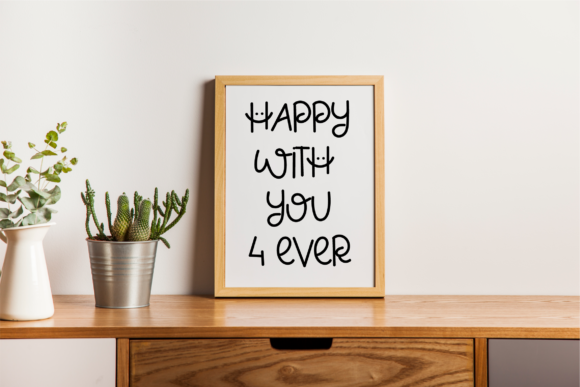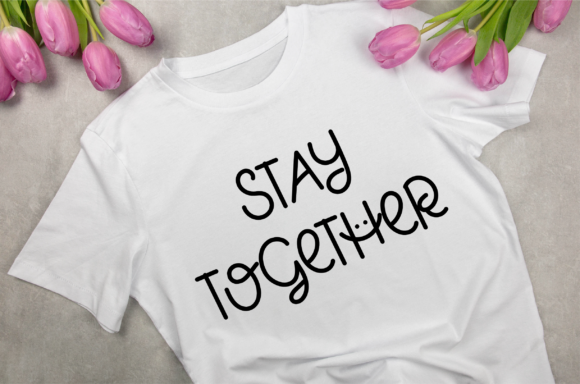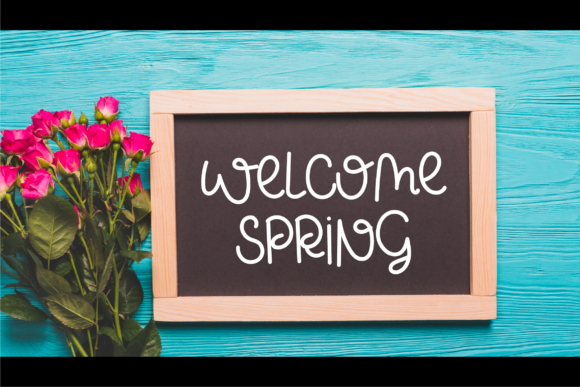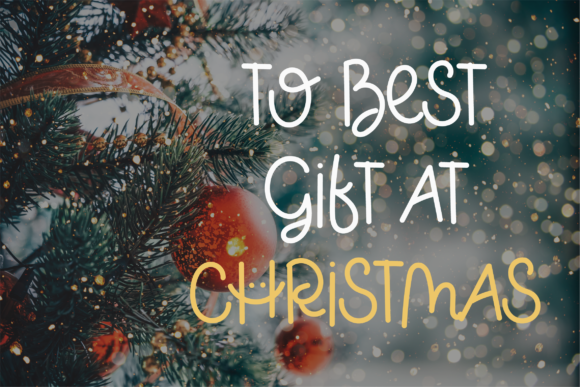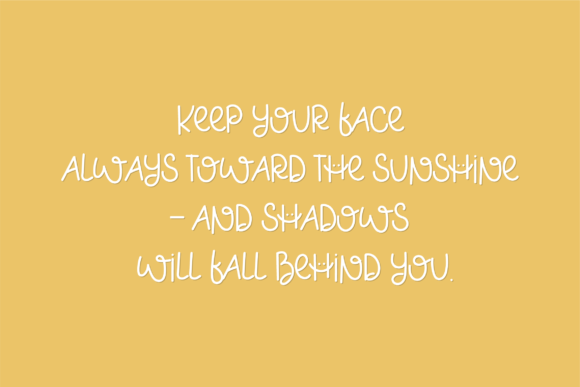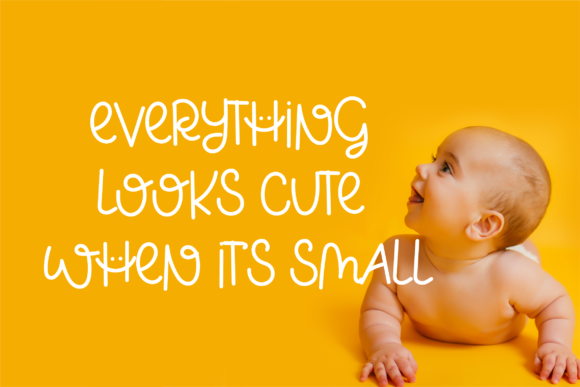
Introduction to Hi Feeling Font Font
Fonts play a crucial role in design, and the Hi Feeling Font font is a typeface that brings both character and versatility to any project. Whether you’re working on a branding project, a website, or a print design, the Hi Feeling Font font offers a unique style that can elevate your work.
Hi Feeling is a cute, thin lettered and quirky handwritten font.
Its sweet and full of life style makes this font a wonderful choice for brightening up your designs .
Key Features of Hi Feeling Font Font
Why Choose Hi Feeling Font Font?
The Hi Feeling Font font is more than just a typeface – it’s a design tool that helps you communicate your message with style and clarity. Its unique character set and versatile design make it suitable for a wide range of applications, from elegant invitations to bold headlines.
With its carefully crafted letterforms and balanced proportions, the Hi Feeling Font font ensures readability and visual appeal across all mediums.
What makes Hi Feeling Font font special?
The Hi Feeling Font font stands out with its unique design, exceptional readability, and versatility across various design applications.